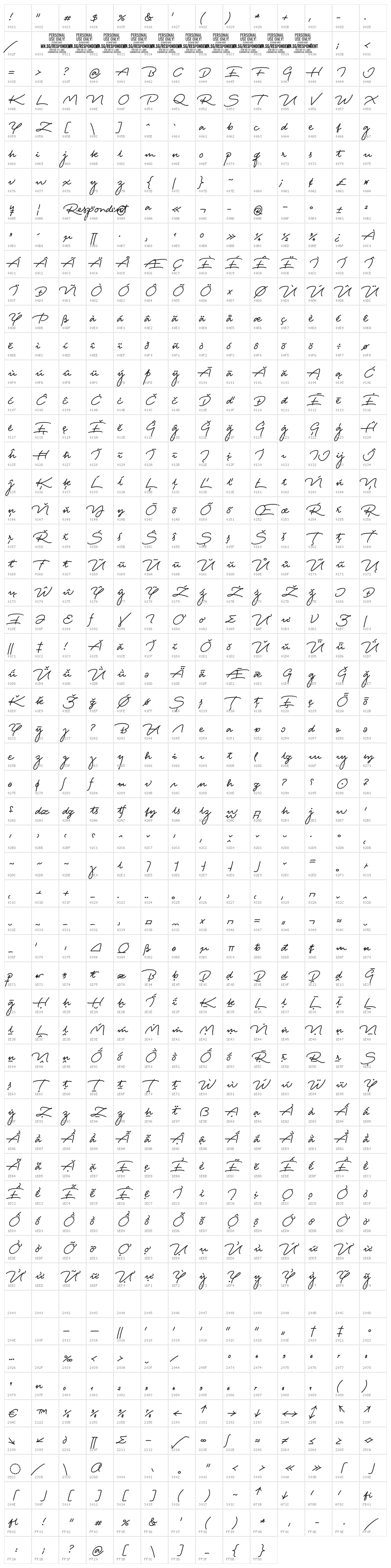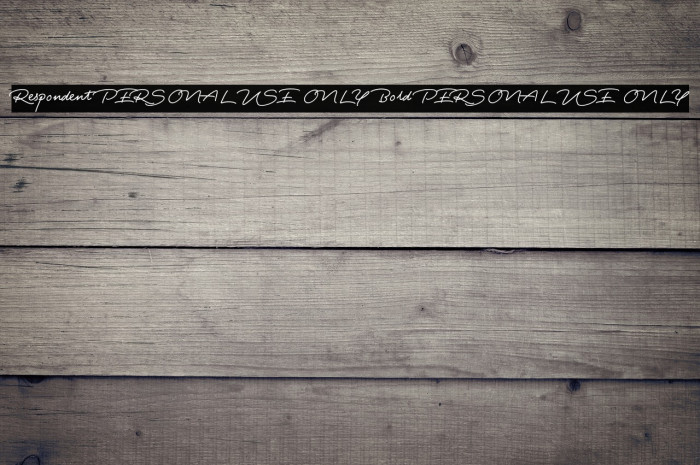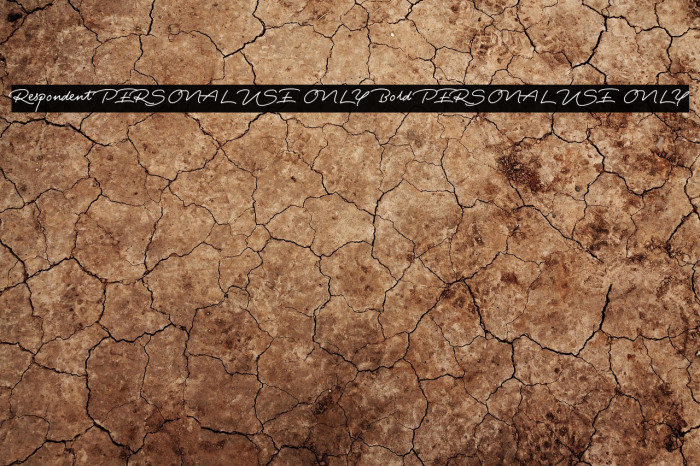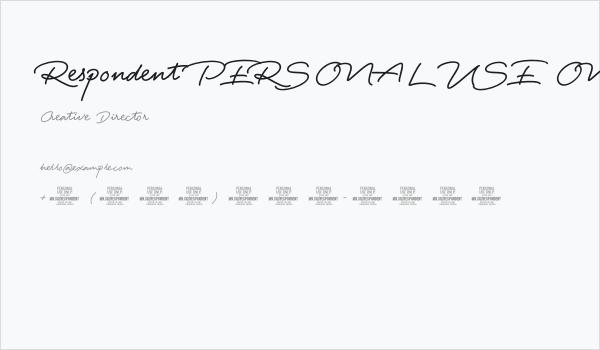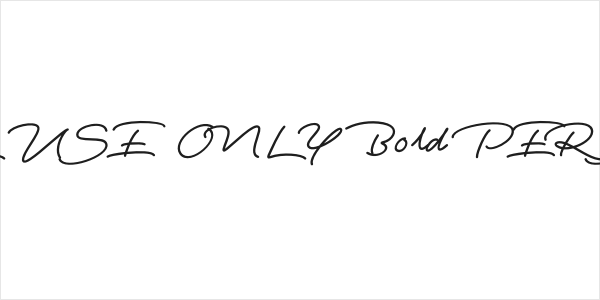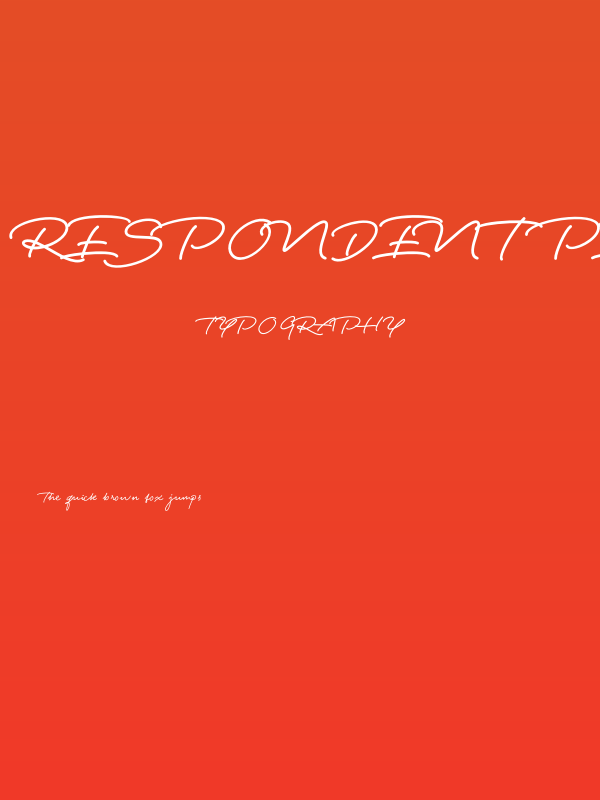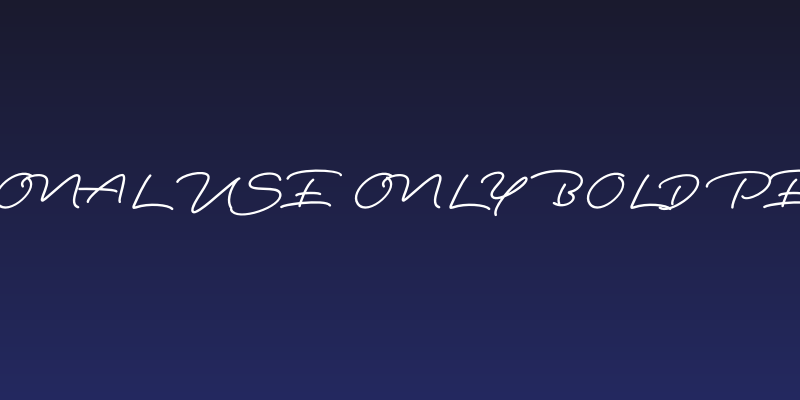
Respondent PERSONAL USE ONLY Bold PERSONAL USE ONLY Font
Respondent PERSONAL USE ONLY Bold PERSONAL USE ONLY Description
This elegant script font features a flowing, cursive style that mimics natural handwriting. The uppercase letters are slightly more formal, with graceful loops and swirls, while the lowercase letters maintain a consistent, fluid motion. The font's bold weight adds a sense of confidence and presence, making it suitable for impactful designs. The characters are well-spaced, allowing for readability despite the intricate design. The font includes a full set of numerals and a variety of special characters, enhancing its versatility for different design needs.
Overall StyleElegant
Use CaseLogos, Invitations, Branding
Proposed ProjectsIdeal for wedding invitations, greeting cards, branding, and logo design.